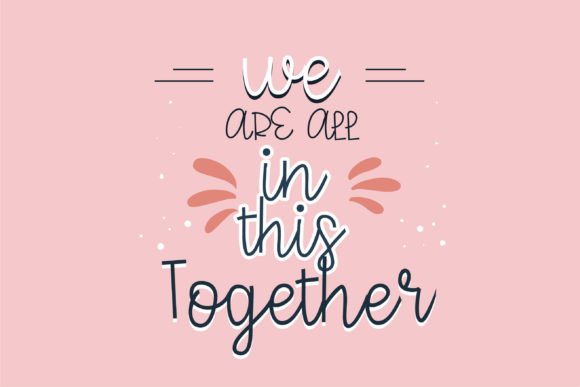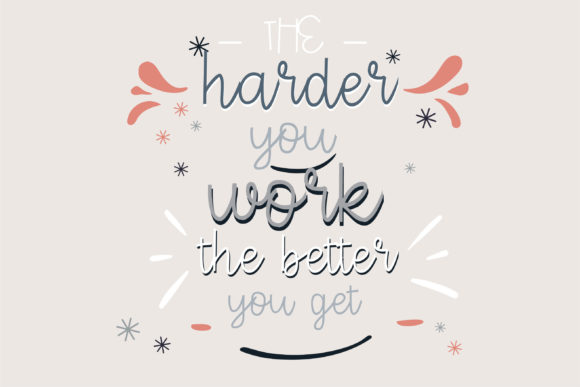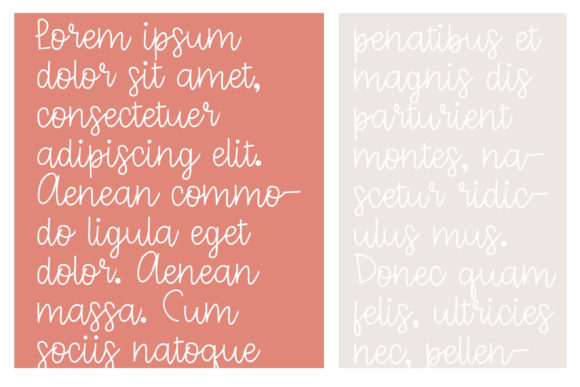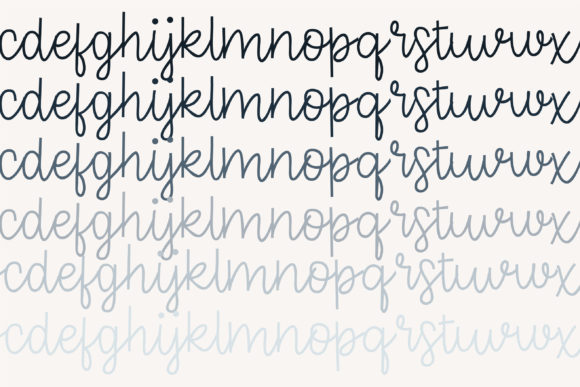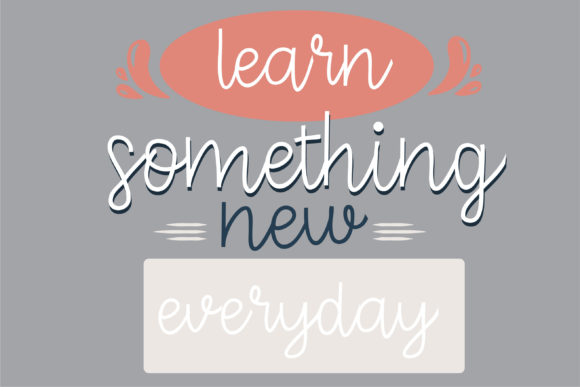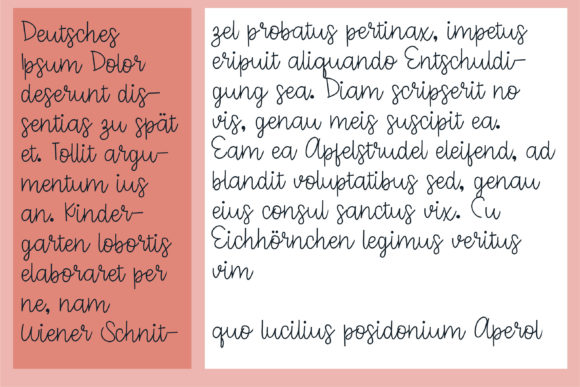
Discover the Timeless Charm of the Gilgamesh Font
Have you ever found yourself lost in a sea of ideas, searching for that perfect font to bring your creative vision to life? It’s a moment we’ve all been in – pouring over font styles, trying to find the one that captures the essence of our design. And then, it hits you – the perfect combination of elegance and whimsy that elevates your work from good to great.
Enter the Gilgamesh Font, a sweet and subtle handwritten font that adds a touch of sophistication to any design project. With its carefully crafted design, this font is the perfect choice for designers looking to add a unique touch to their work. Whether you’re creating a branding package, a marketing campaign, or a beautiful book cover, the Gilgamesh Font is sure to make your design stand out.
Gilgamesh Font Key Features
- Font Family: Gilgamesh, Gilgamesh Bold, Gilgamesh Italic, Gilgamesh Bold Italic
- Unique Characteristics: Gilgamesh is a high-quality, elegant script font inspired by ancient Mesopotamian calligraphy, making it suitable for formal and luxury designs
Gilgamesh Font Review
Overall, I’m quite impressed with the Gilgamesh font. Here are some aspects where it truly shines: ✨
- Unique character: Gilgamesh brings a sense of mysticism and grandeur to any project. Its elegant, cursive script makes it perfect for titles, headings, and other prominent text.
- High-quality rendering: The font is well-crafted, with smooth lines and clear typography that looks great on both screens and paper.
- Flexibility: Gilgamesh comes in multiple weights and styles, allowing designers to choose the perfect fit for their project’s tone and aesthetic.
- Readability in small sizes: While Gilgamesh looks stunning at larger sizes, it can become difficult to read at smaller point sizes due to its complex, cursive design.
- Limited language support: Unfortunately, Gilgamesh only supports a limited set of languages, which may be a drawback for designers working on multilingual projects.
Despite these limitations, I think Gilgamesh is a fantastic font that can elevate any project with its unique style and high-quality rendering. It’s perfect for designers looking to add a touch of sophistication and elegance to their work.
Tips for Getting the Most Out of Gilgamesh Font
Use Gilgamesh Font for dramatic or epic titles, headings, or quotes.
Pair it with a clean, modern sans-serif font for a striking contrast.
Experiment with different font sizes and colors to create a visually appealing effect.
Use Gilgamesh Font for:
Movie titles and posters
Book covers and author names
Event titles and promotional materials
Alternatives to Gilgamesh Font for Designers
Playfair Display is a luxurious, high-end serif font ideal for use in titles, headings, and any design that requires elegance and sophistication. It’s perfect for wedding invitations, luxury brands, and high-end publications.
Playfair Display has a more refined and delicate feel compared to Gilgamesh, which makes it suitable for designs that require a touch of sophistication. While Gilgamesh has a more dramatic and ancient feel, Playfair Display is more subtle and refined.
2. Didot
Didot is a classic, high-end serif font that’s perfect for use in luxury branding, advertising, and editorial design. It’s ideal for use in titles, headings, and any design that requires a sense of refinement and sophistication.
Didot has a more elegant and refined feel compared to Gilgamesh, which makes it suitable for designs that require a touch of luxury. While Gilgamesh has a more dramatic and ancient feel, Didot is more classic and timeless.
3. Bodoni
Bodoni is a classic, high-end serif font that’s perfect for use in luxury branding, advertising, and editorial design. It’s ideal for use in titles, headings, and any design that requires a sense of sophistication and elegance.
Bodoni has a more refined and elegant feel compared to Gilgamesh, which makes it suitable for designs that require a touch of luxury. While Gilgamesh has a more dramatic and ancient feel, Bodoni is more classic and refined.